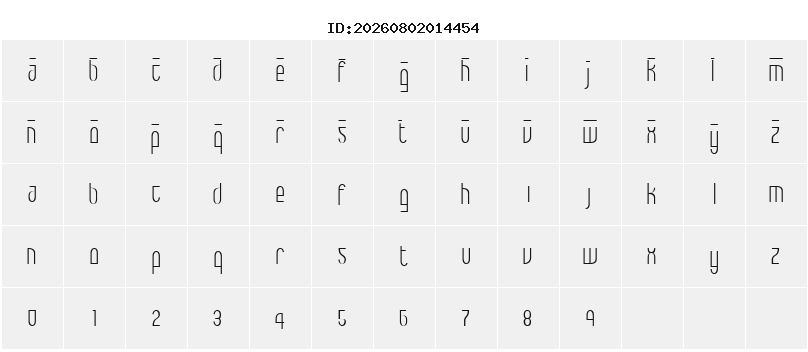
• Font Name: Max
About Max.ttf
Max.ttf is a modern, elegant sans-serif font designed for ultimate readability and visual harmony. Perfect for branding, headlines, web design, and print materials.